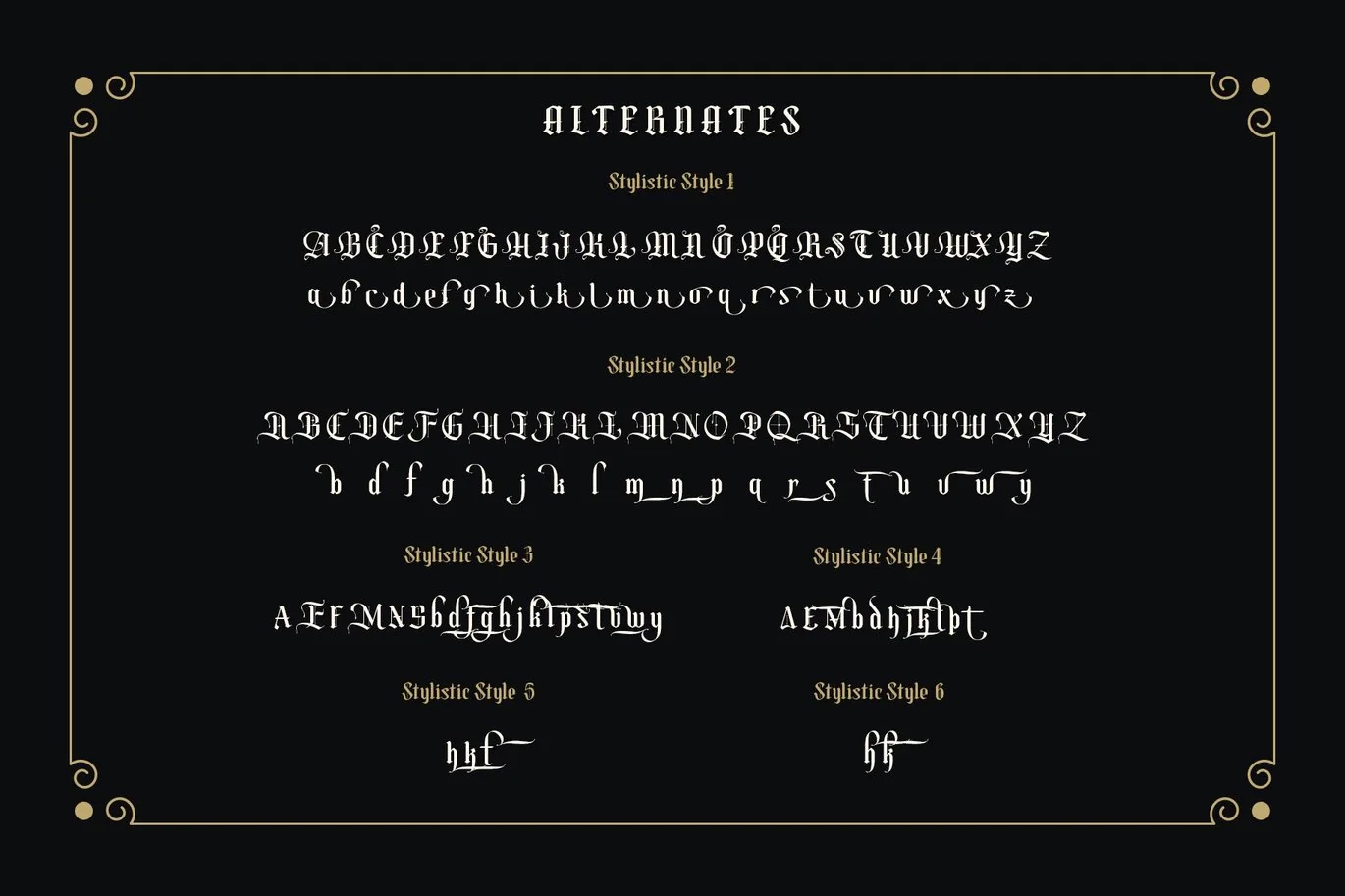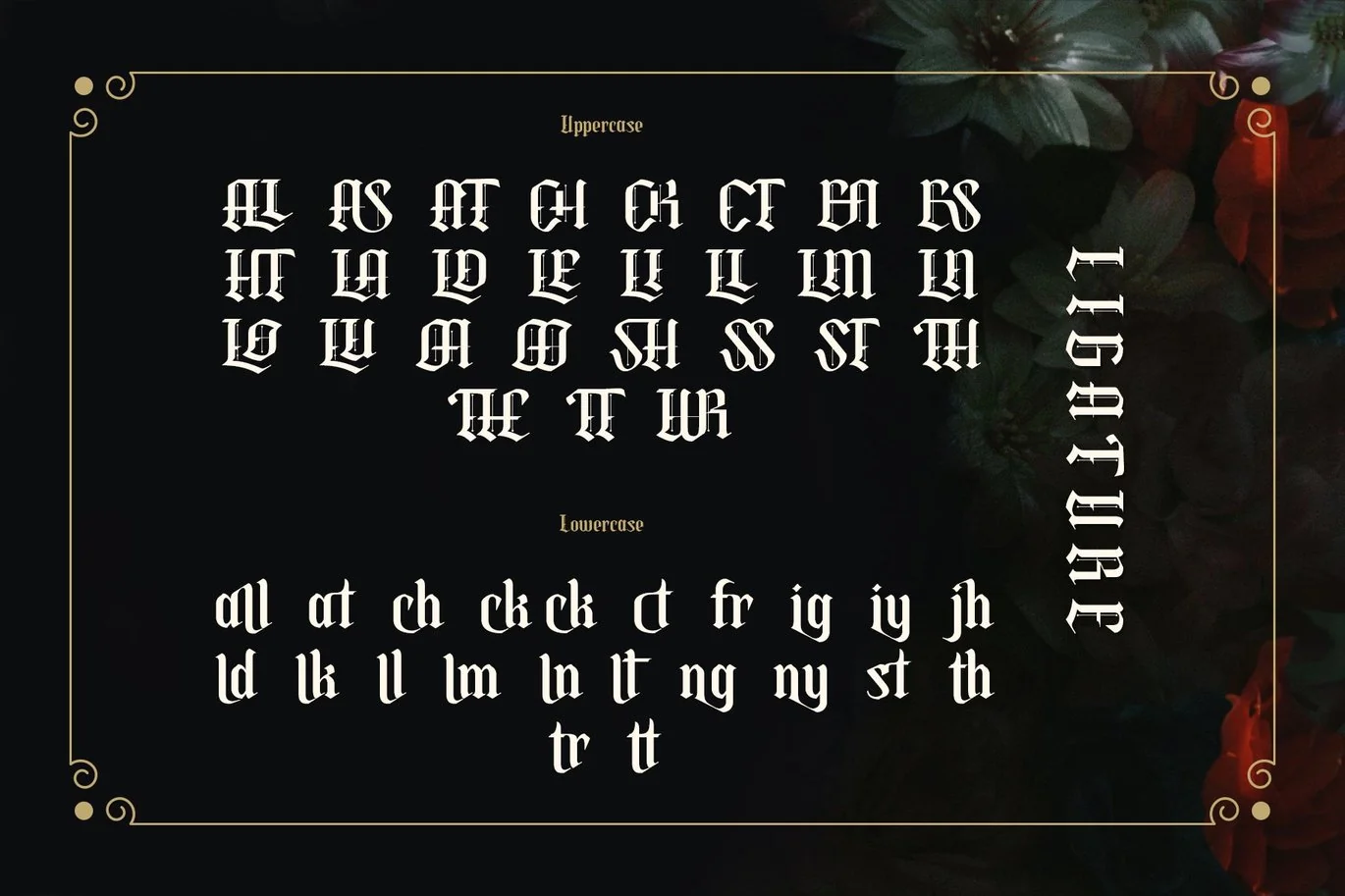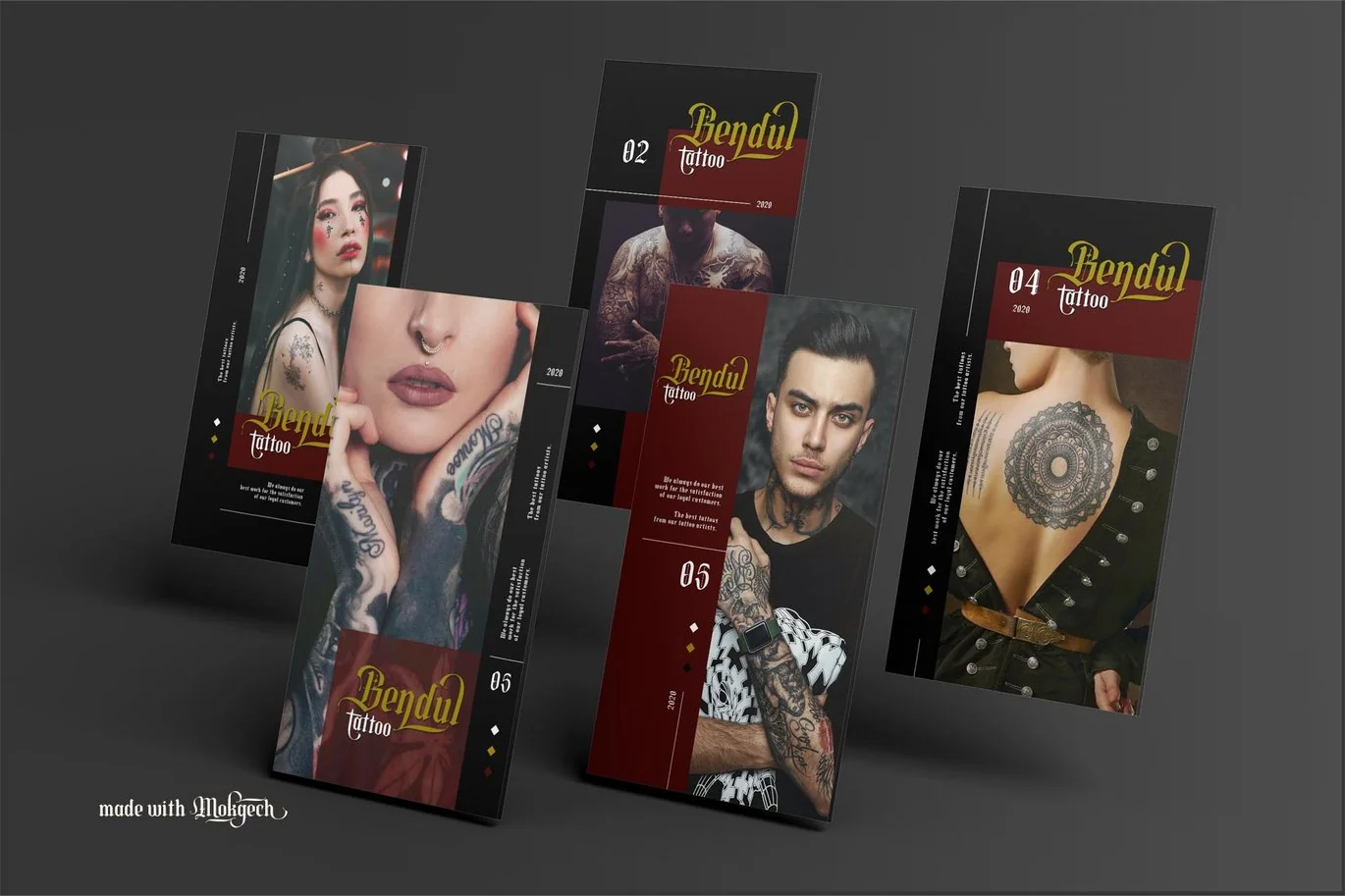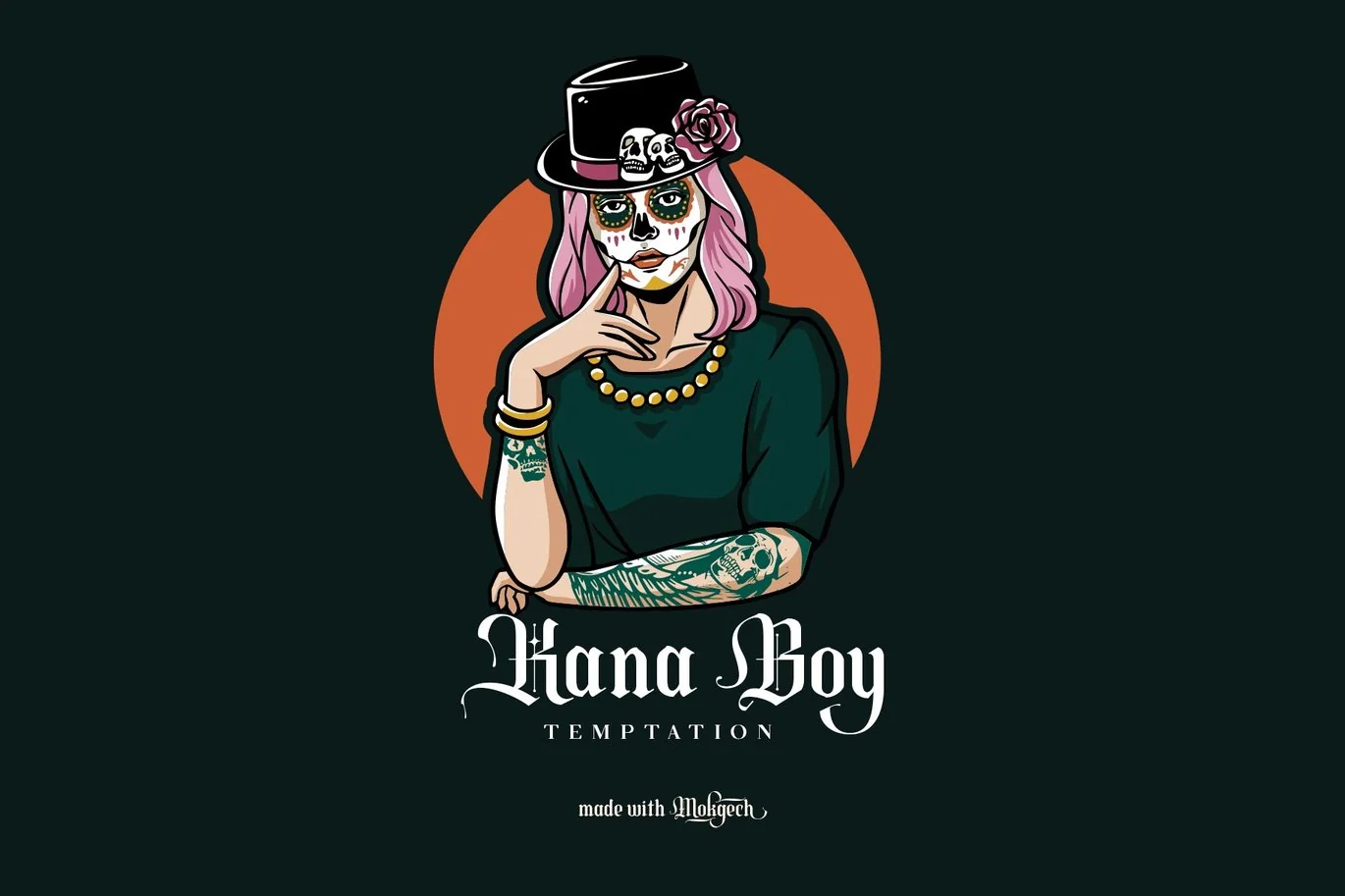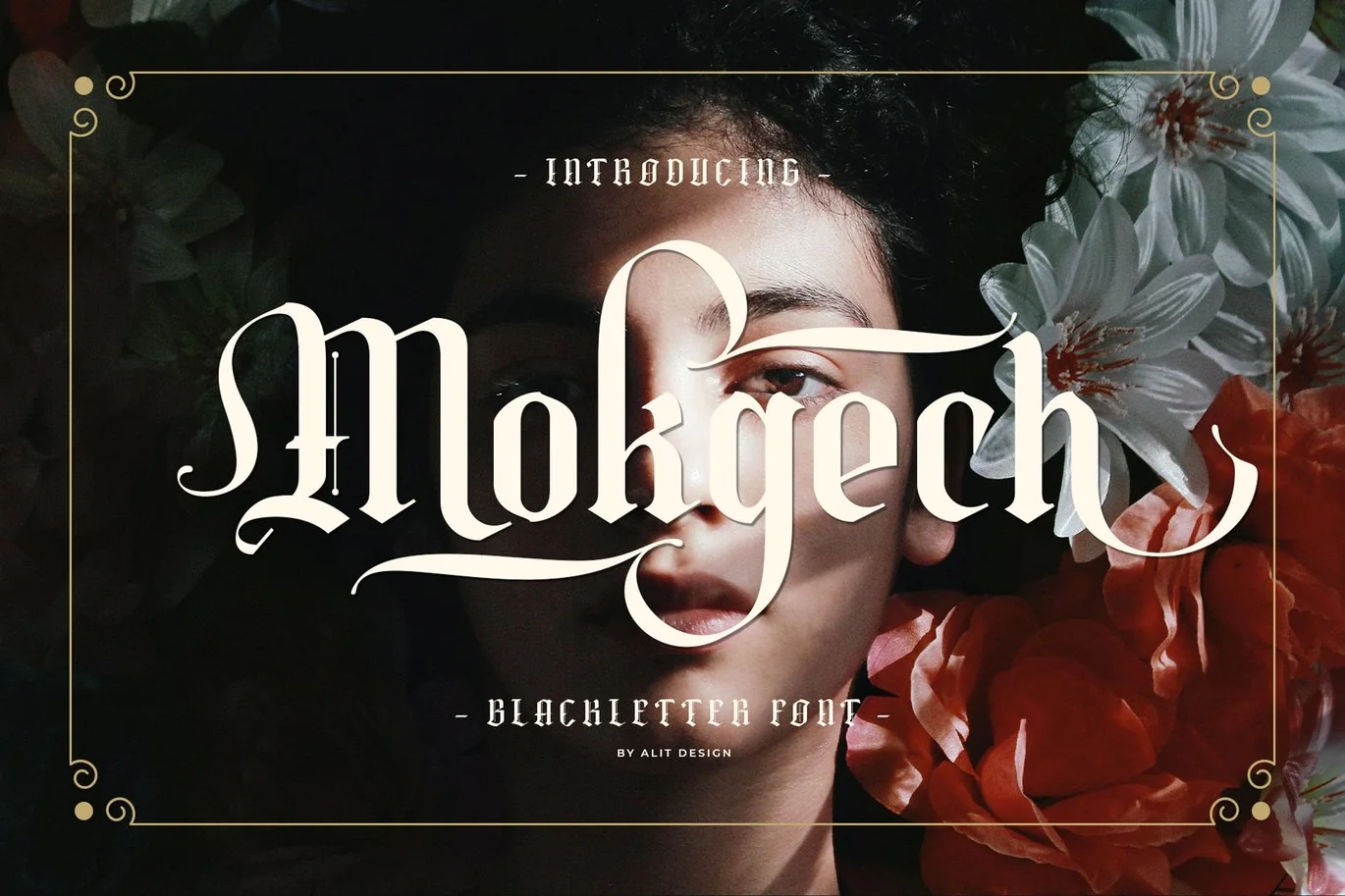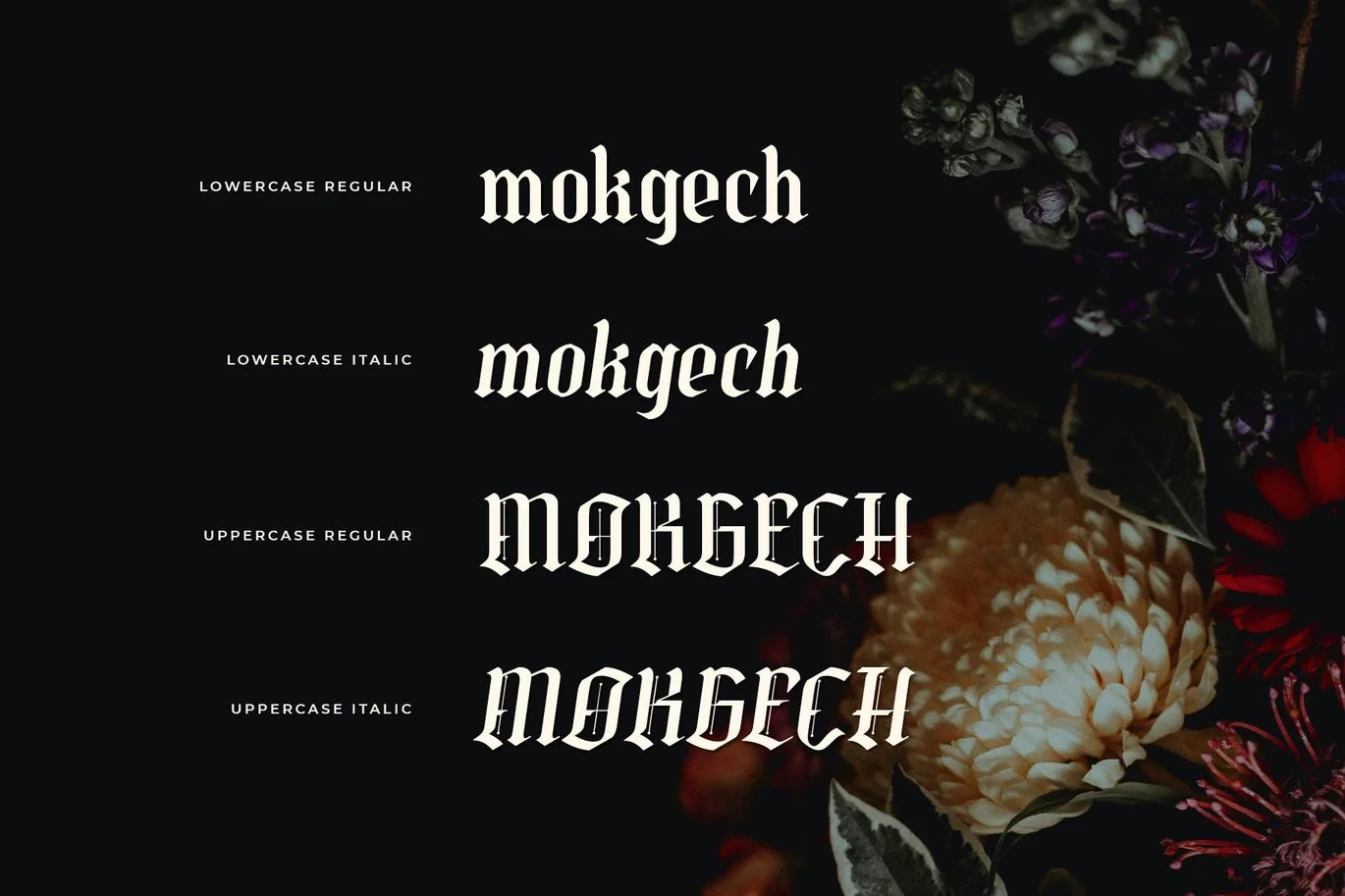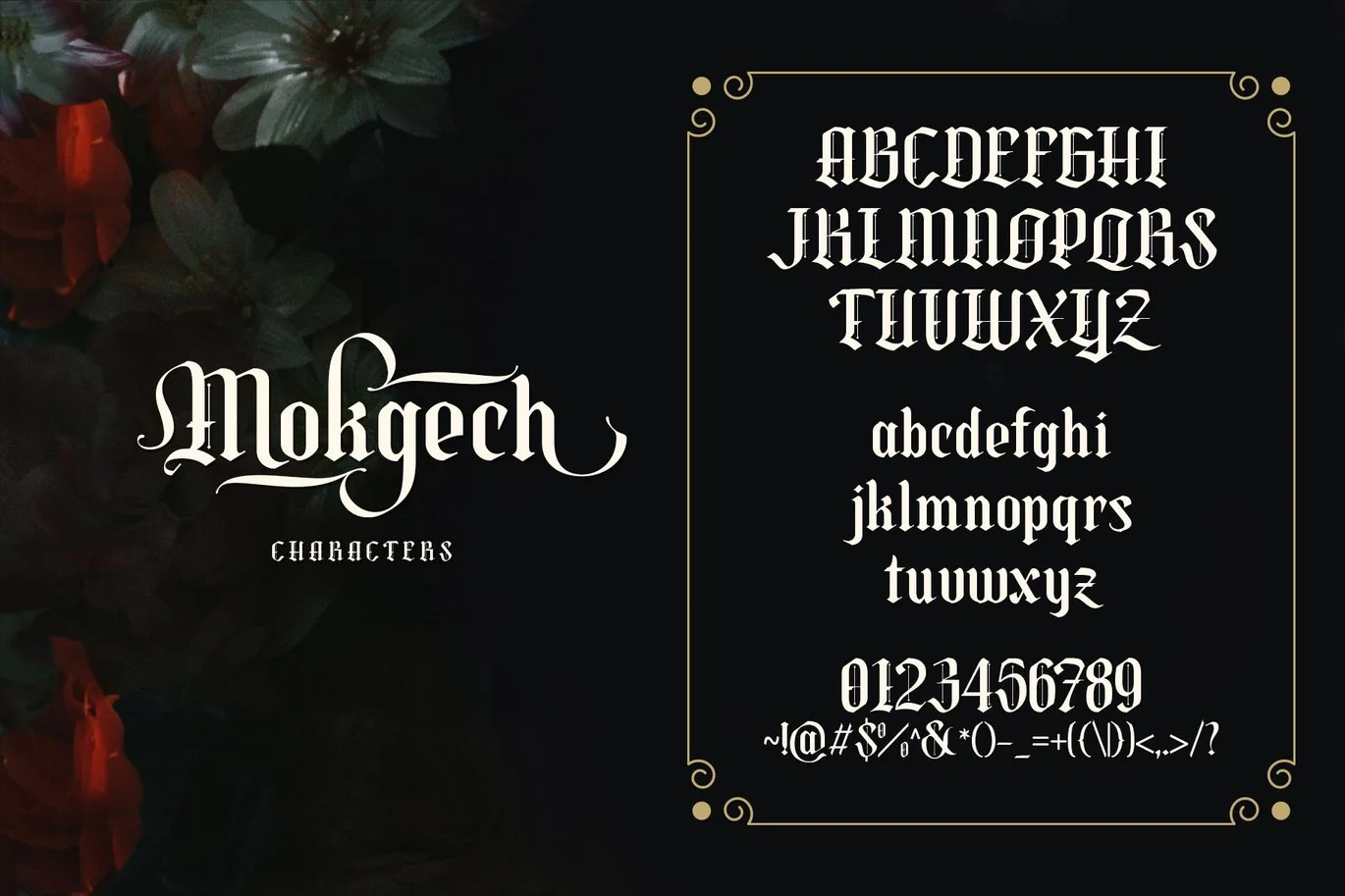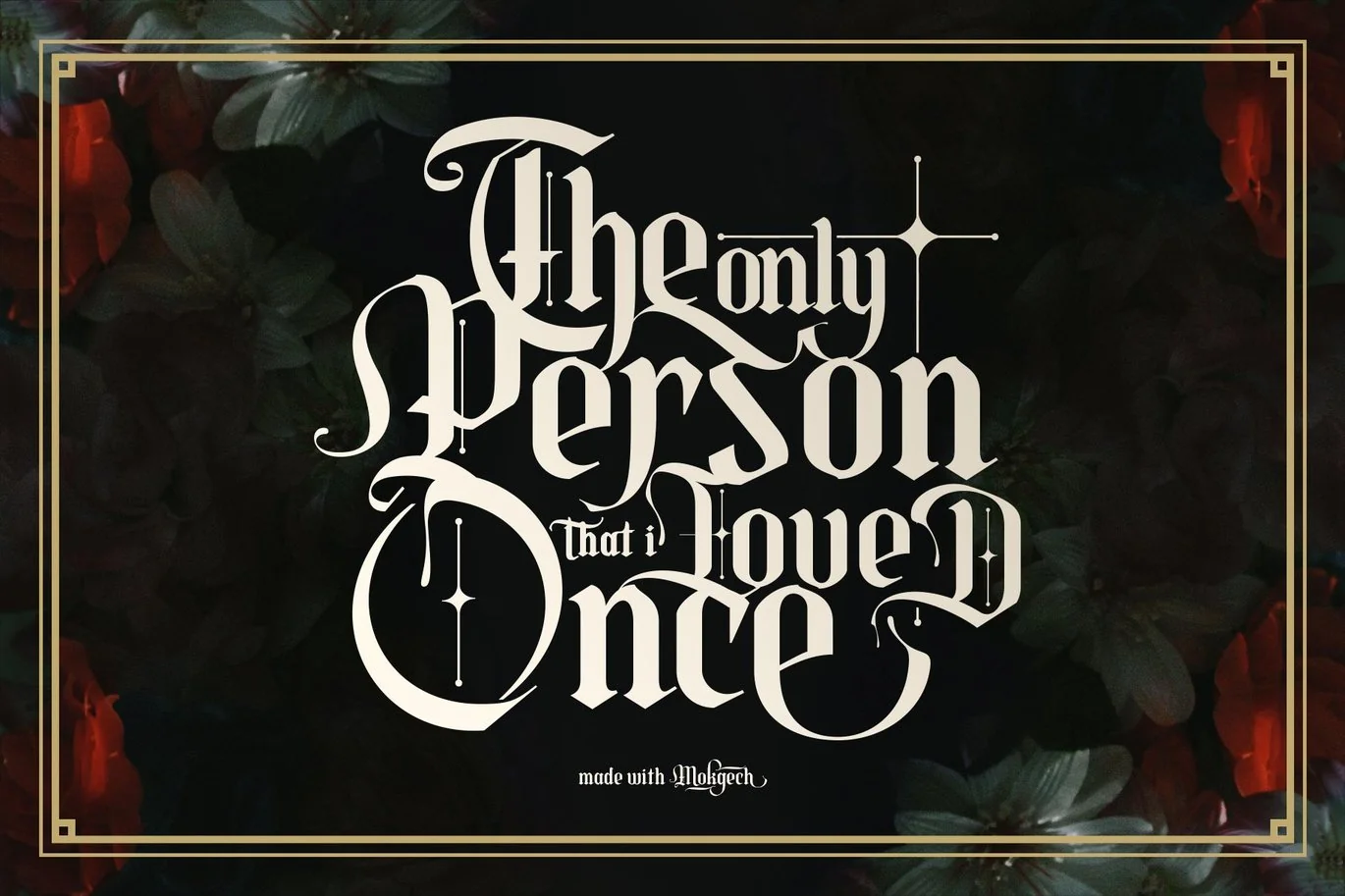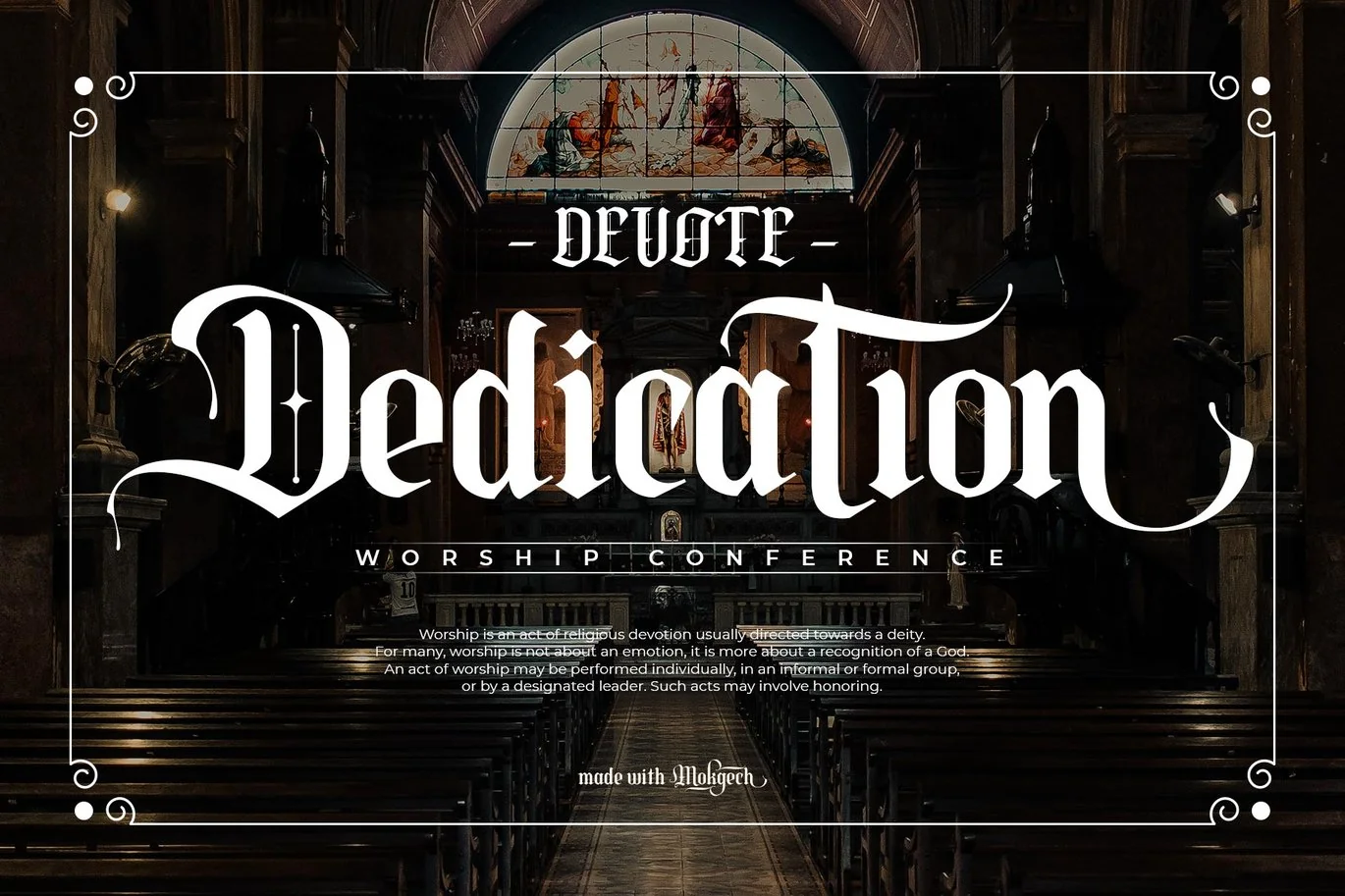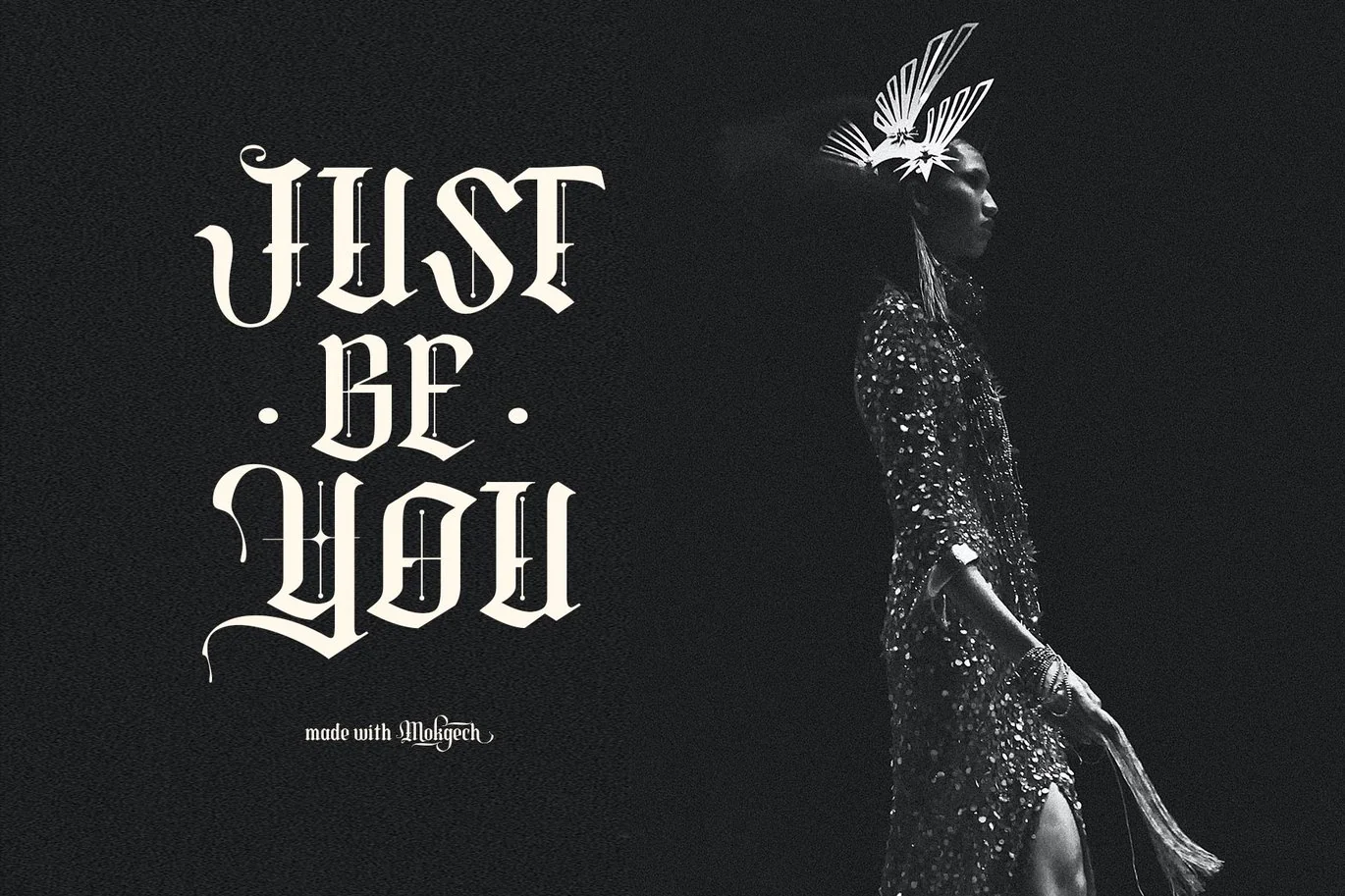
Mokgech Typeface
Introducing Mokgech Typeface
The Mokgech typeface is inspired by cool old style blackletter letters. Mokgech typeface has many alternative characters such as swash, ligature and a choice of several characters from uppercase or lowercase letters. In addition, the Mokgech font is also equipped with an italic version. It is suitable for gothic, tattoo, serious and horror themed designs.
Can be used for the design of alcoholic beverage packaging, tattoo, pomade designs, barbershops and so on with the Victorian classic concept.